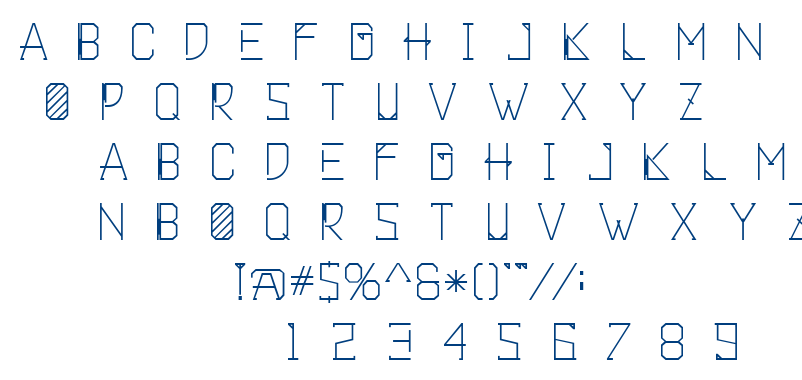
Tiny Small Medium Large Khemala font Alex Dale Website khemala.ttf Download 1884 downloads Freeware Category: Techno » Various A font I designed which I would describe as Sleek, sharp & bold. Free to download. Character Map specimen sheet